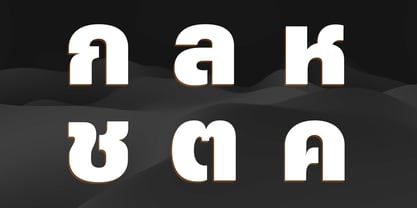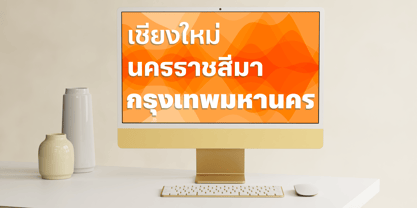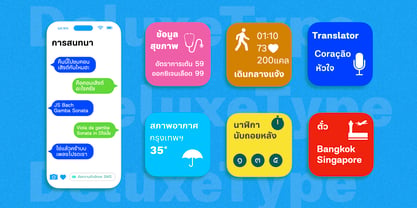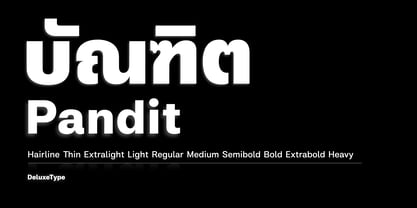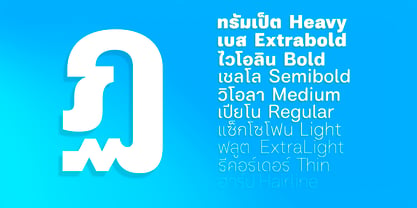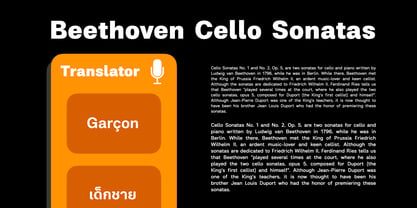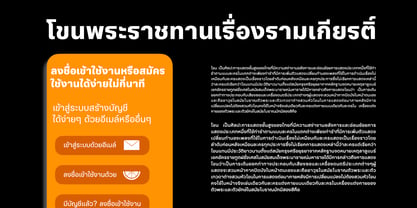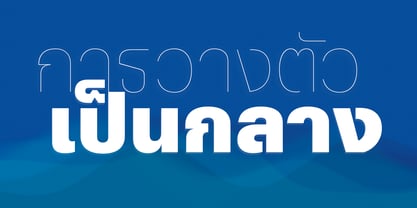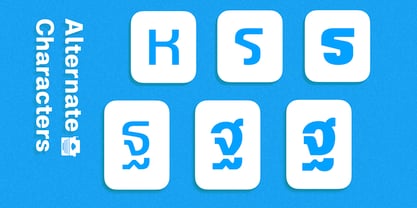
Pandit
The Pandit Font Family was designed by Gentao Yang and published by DeluxeType. Pandit contains 10 styles and family package options. More about this family
Pandit is a contemporary Neo-grotesque sans serif typeface designed for both Latin and Thai loopless scripts. It comes in 10 finely tuned weights, ranging from Hairline to Heavy. Pandit offers a complete typographic spectrum for every design need. Balancing neutrality with quiet sophistication, it carries a calm, simple, and approachable tone. Its versatility makes it equally effective in small text for comfortable reading, as well as in large-scale display and UI applications, where clarity and presence are essential. The name Pandit originates from Pali and Sanskrit, where it denotes a person of wisdom, a scholar, or one endowed with innate talent.
Deluxetype Foundry was founded by Gentao Yang in 2019. Dedicated to creating original, high-quality typefaces for multilingual contexts. Specializing in Latin, Thai, and Lao scripts, Deluxetype produces finely crafted fonts that balance technical precision with cultural sensitivity. Every letterform is drawn with intention—carefully shaped to ensure clarity, character, and elegance across writing systems.With a deep respect for linguistic diversity, Deluxetype seeks to broaden its typographic scope by supporting a wider range of global scripts. The work reflects an ongoing exploration of how typography can unify communication across languages while preserving the distinct identity of each script. Whether for editorial design, branding, or digital interfaces, Deluxetype typefaces are built to perform beautifully in multilingual contexts.